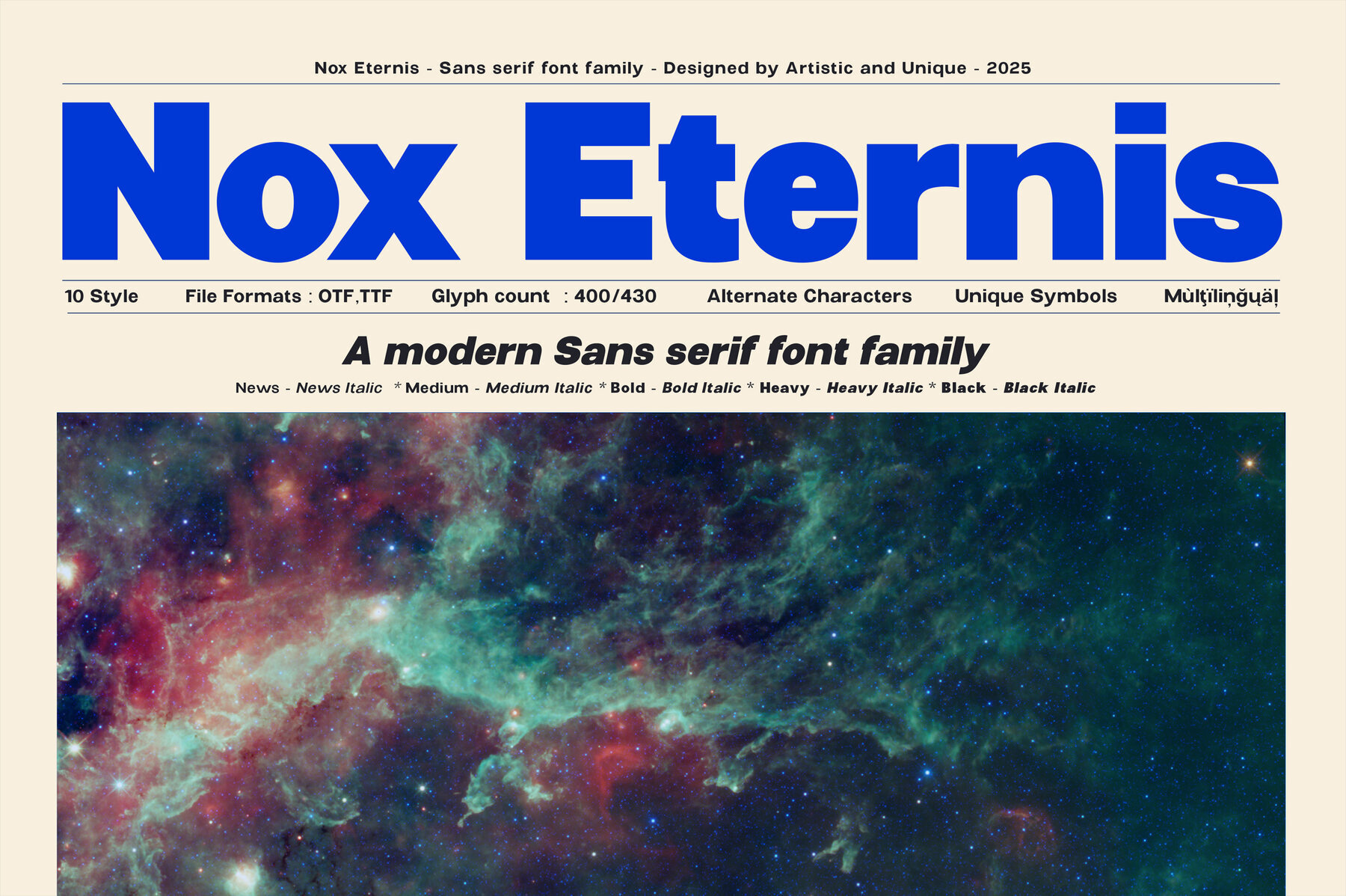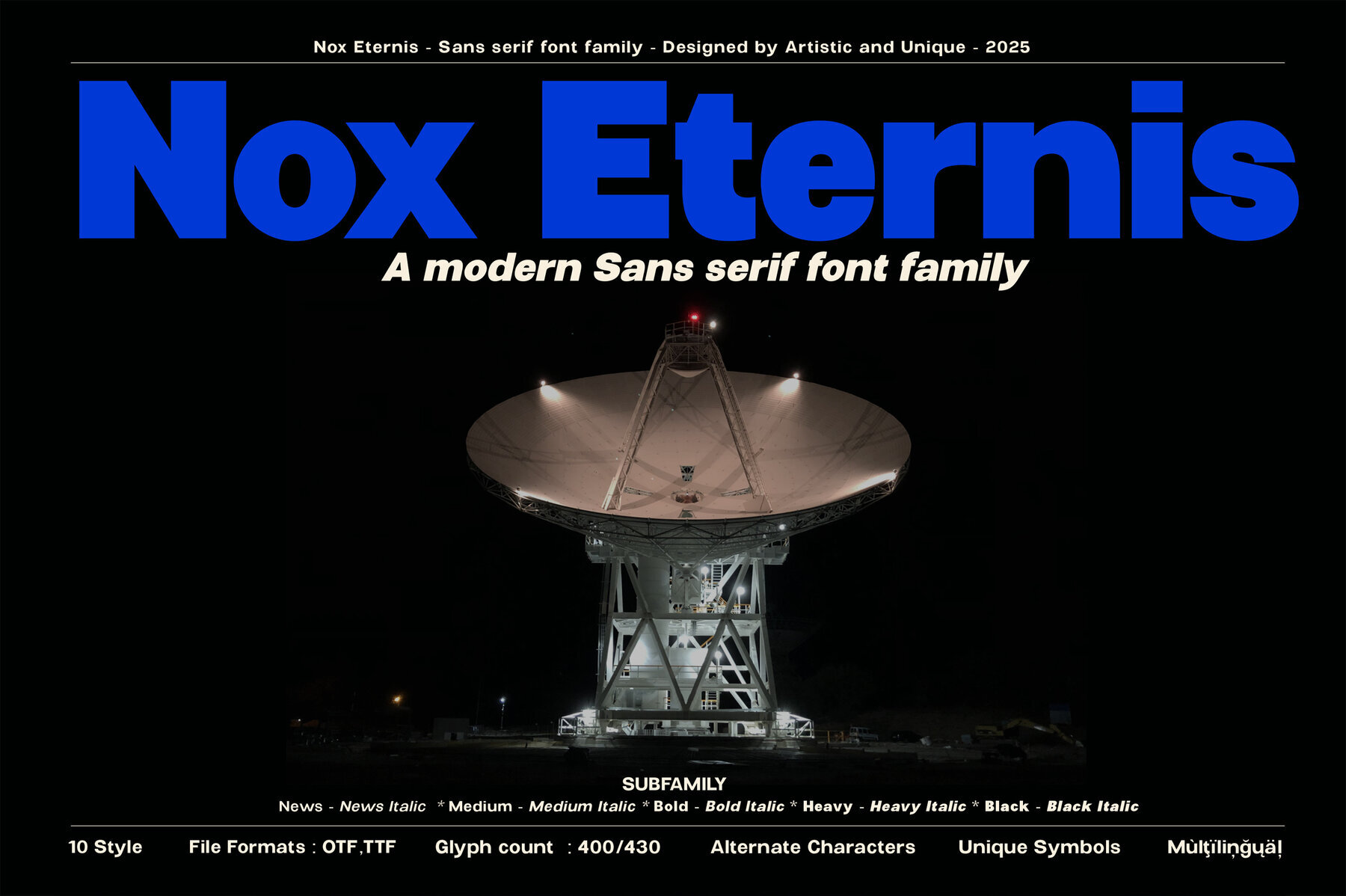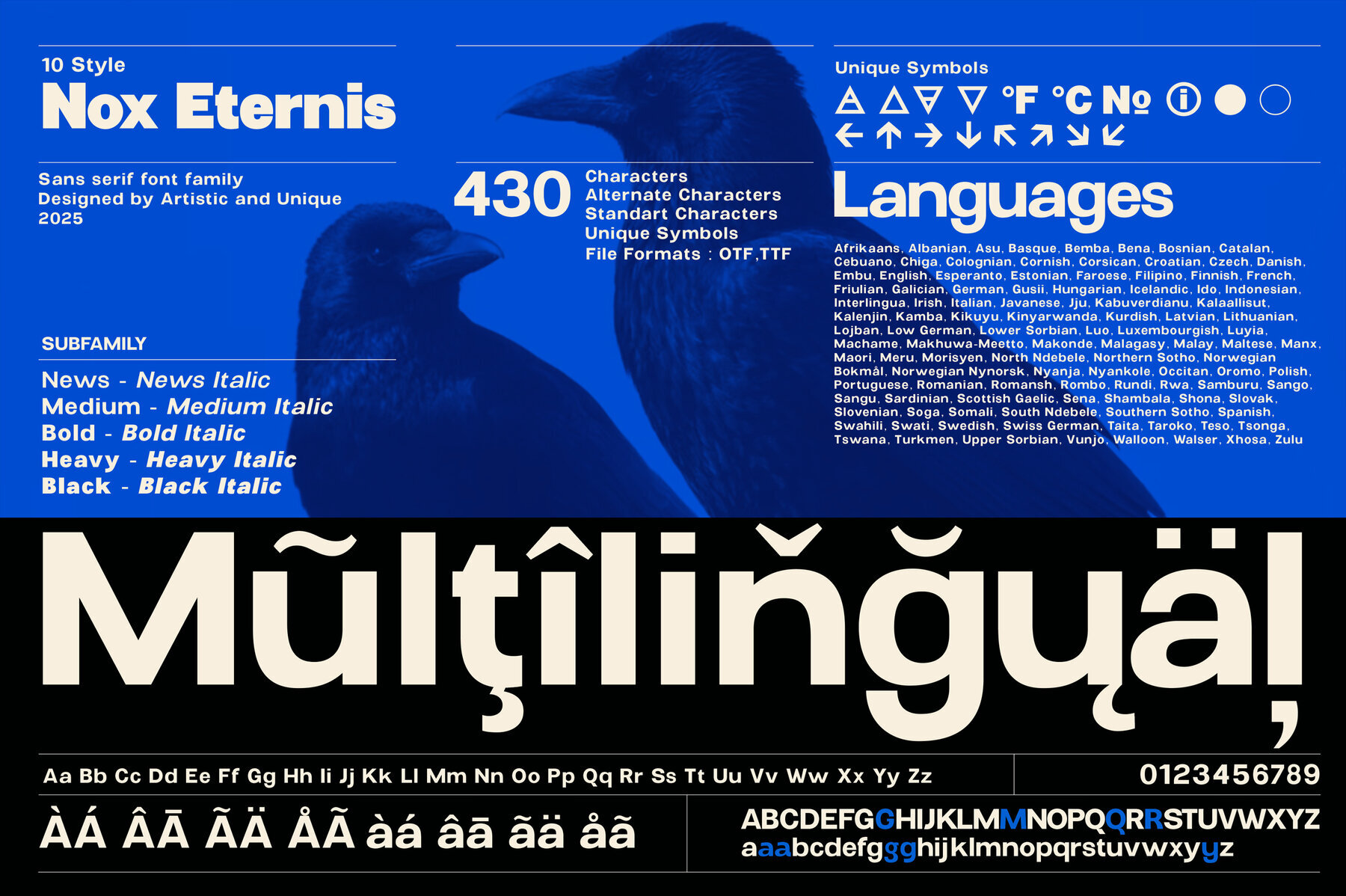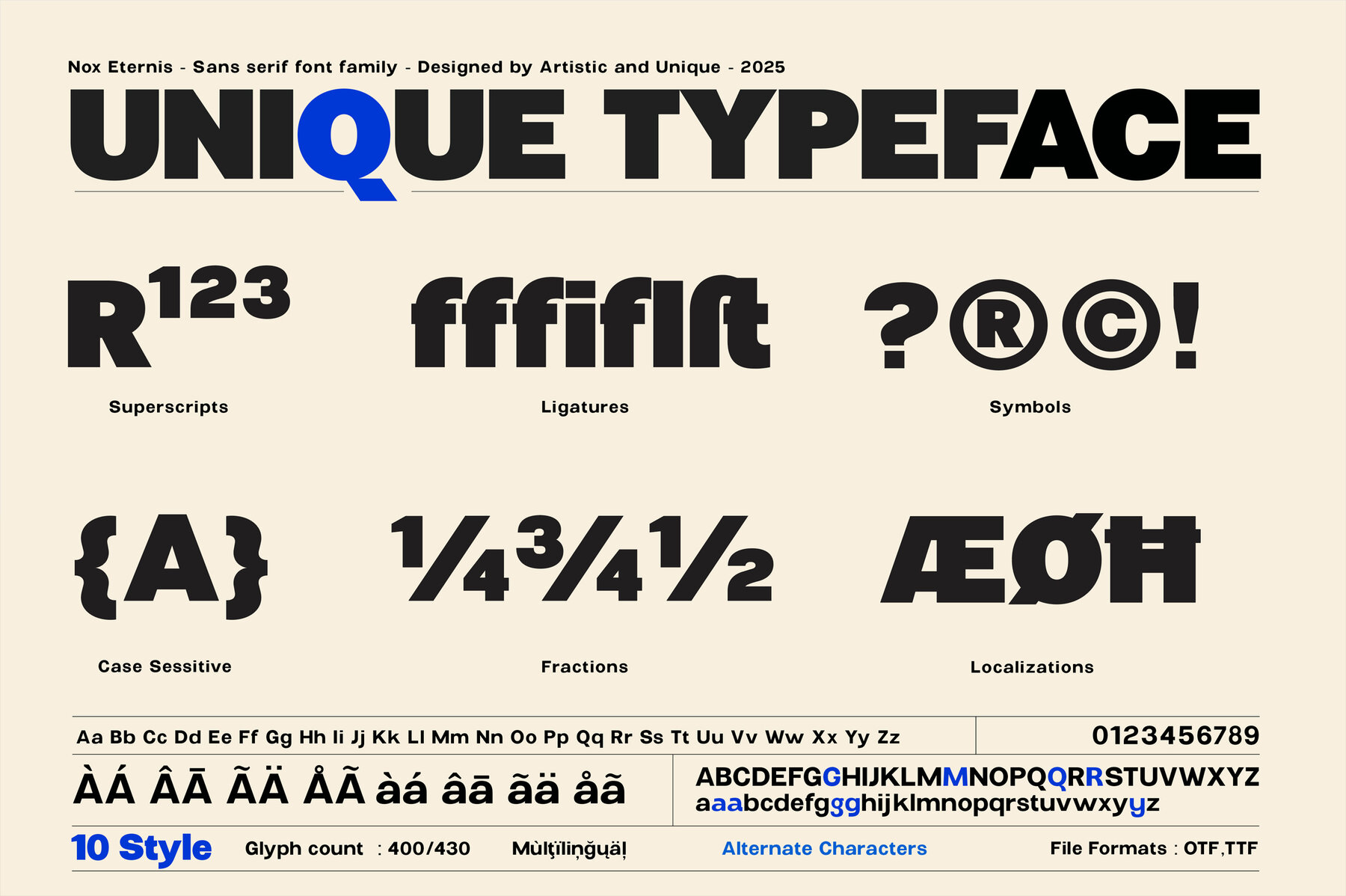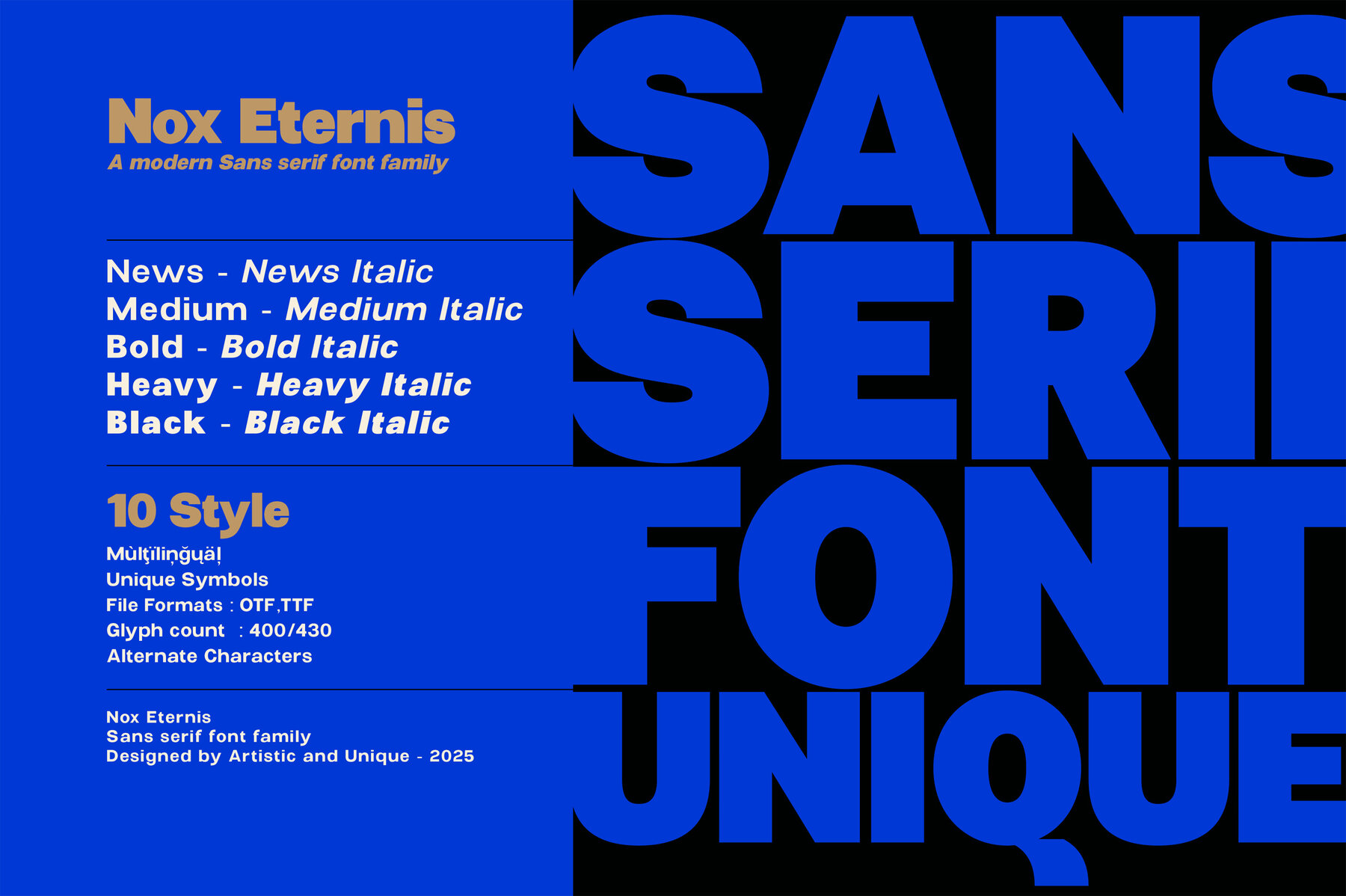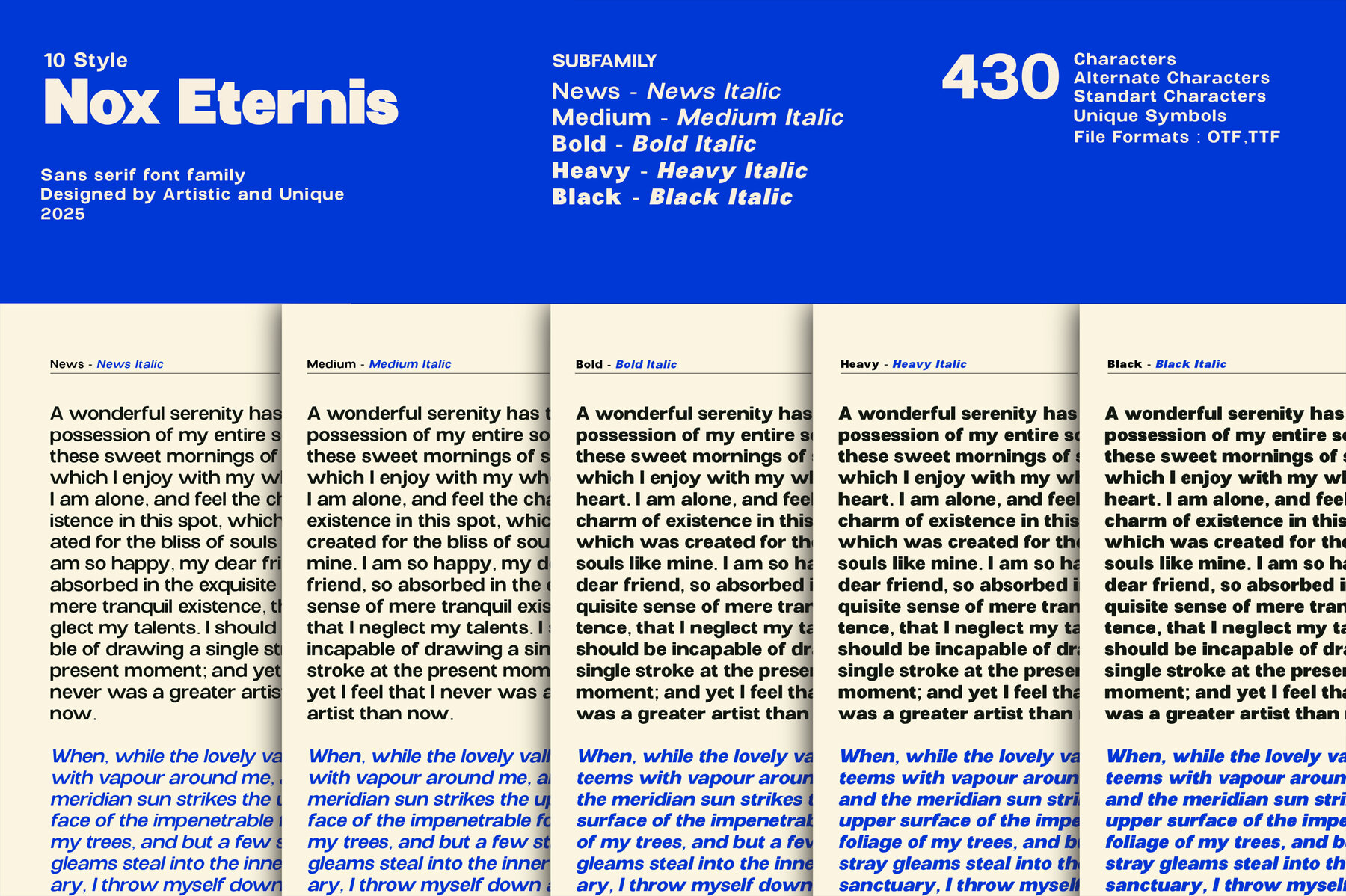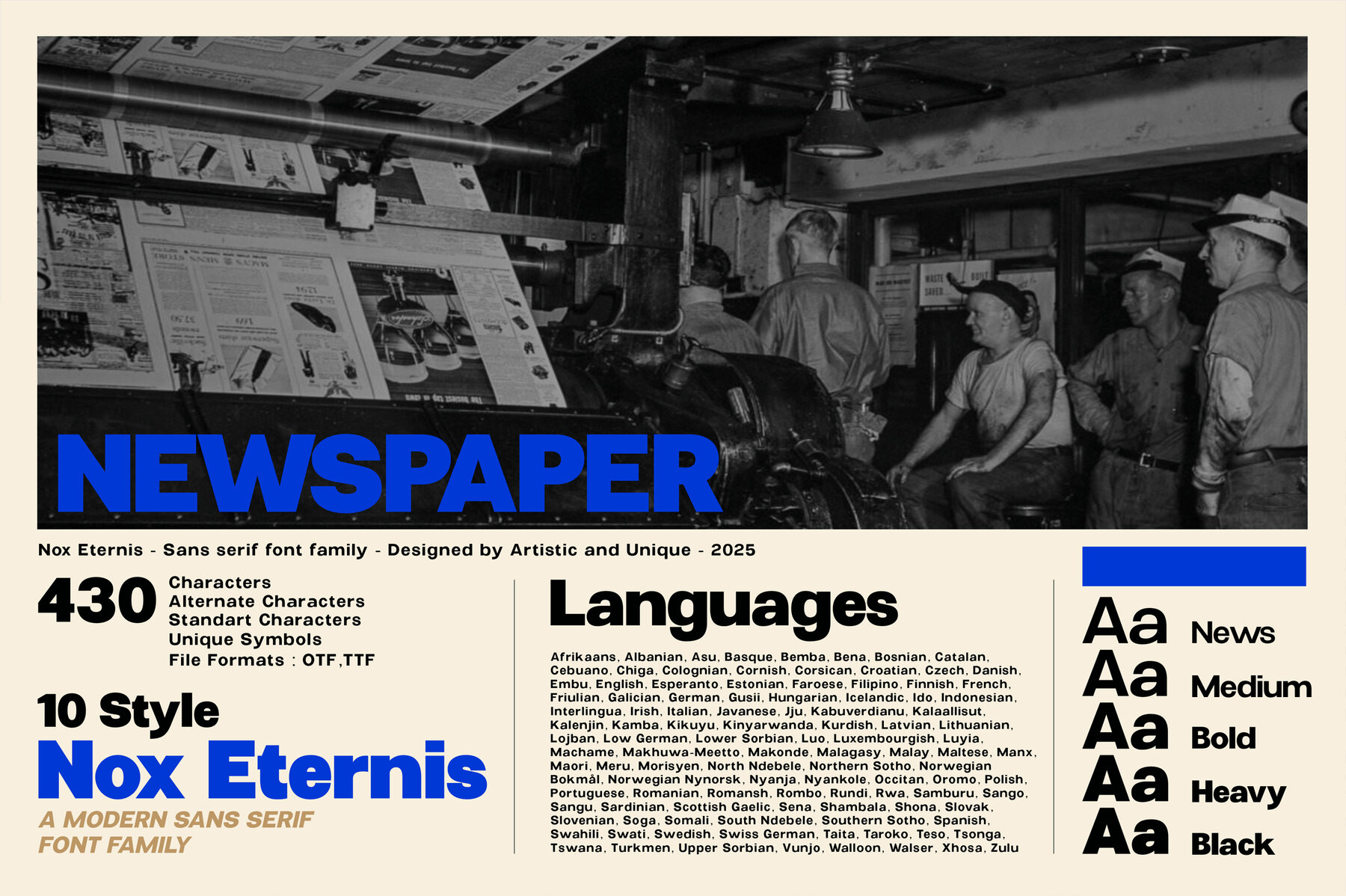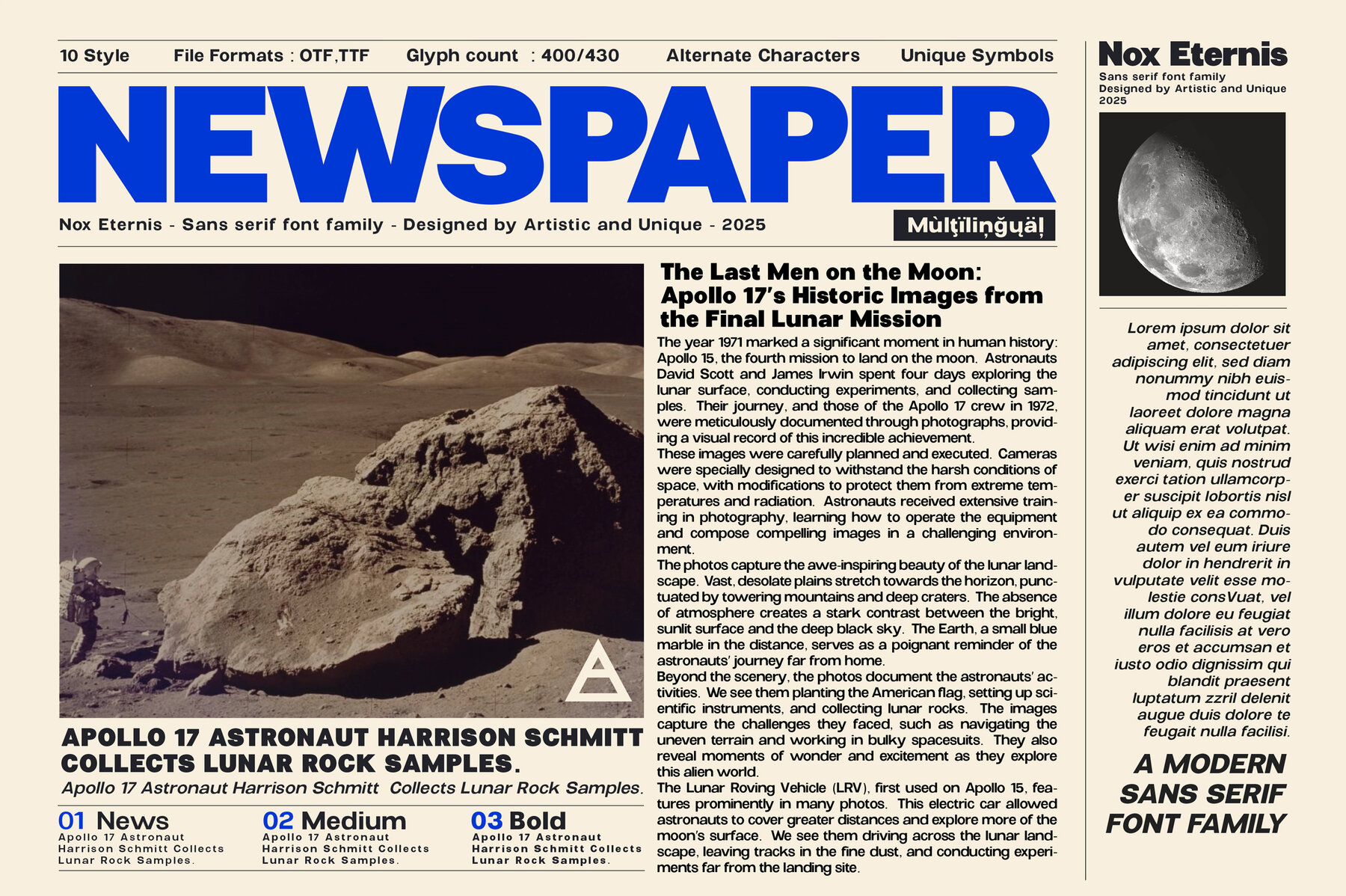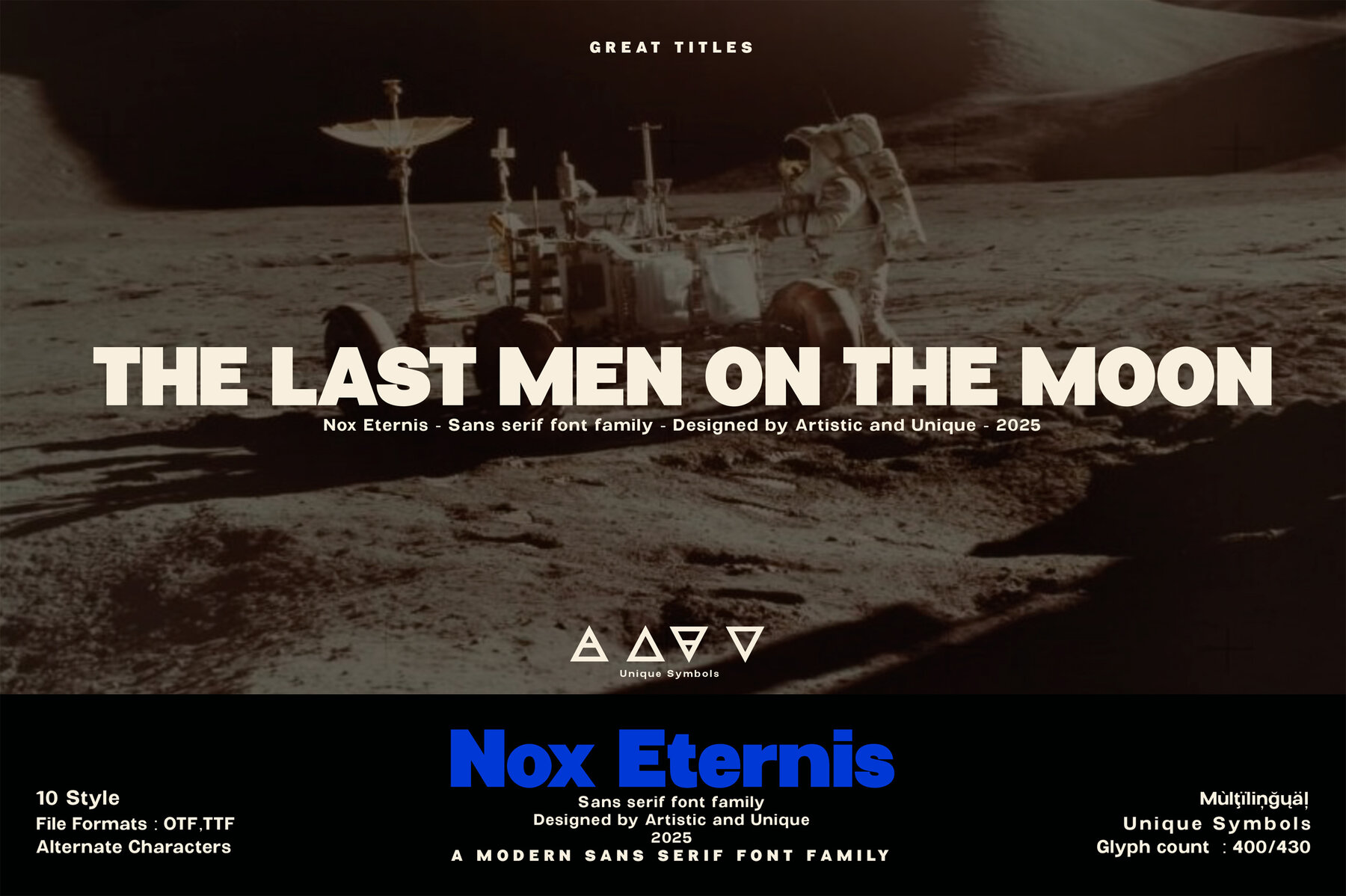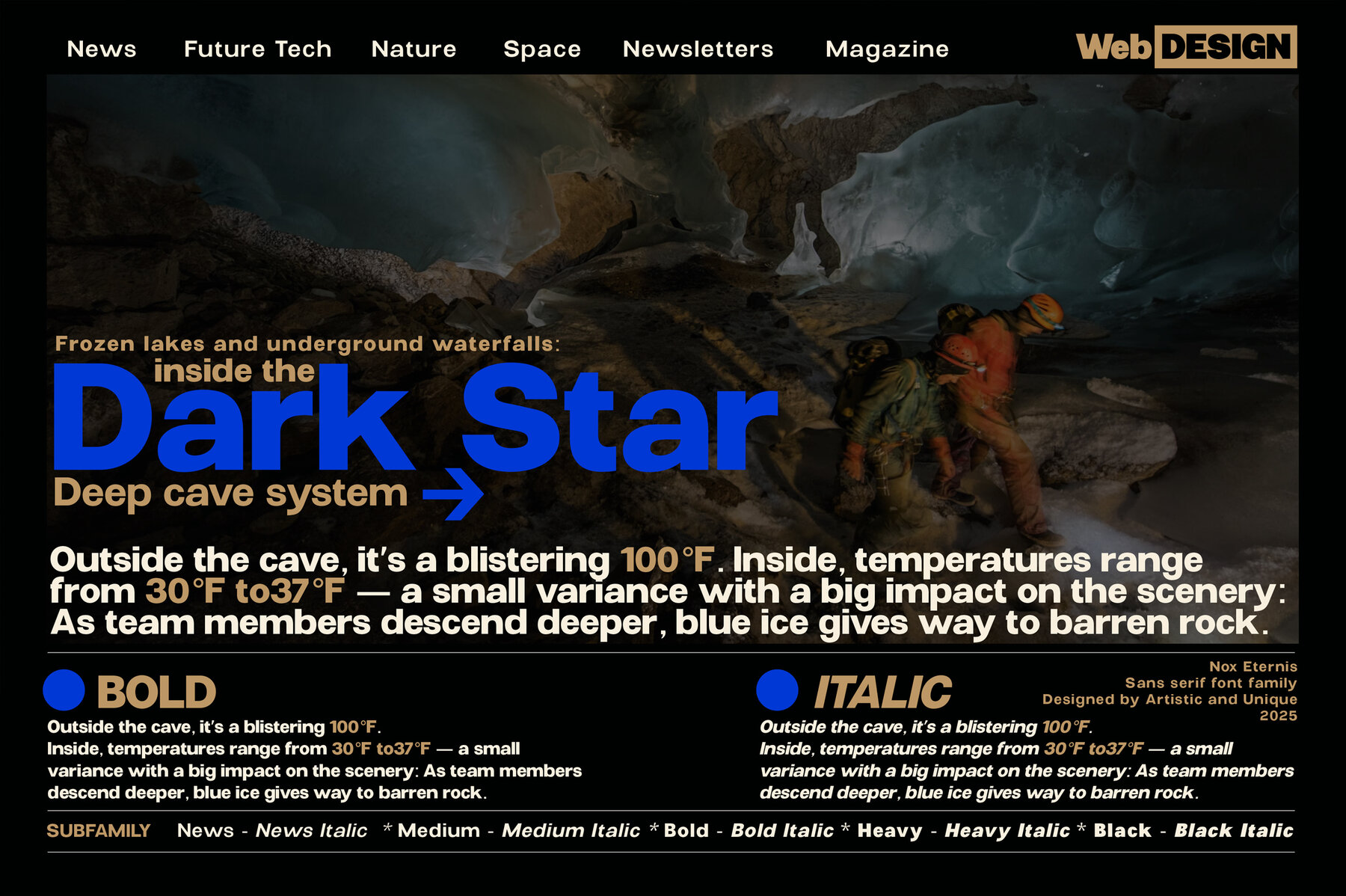
Nox Eternis Font
Nox Eternis is a compelling sans serif font family, celebrated for its clear readability and striking accents. Drawing upon typography from the 1930s to the 1960s, this font revives the timeless spirit of historical publications while adding a modern twist. With a design ethos rooted in simplicity and modernism, Nox Eternis seamlessly adapts to contemporary design projects. This font family, consisting of ten distinct styles, showcases its versatility in both digital and print media. Whether opting for bold styles to emphasize key messages or thin styles for understated elegance, Nox Eternis offers suitable options for varied creative pursuits. The font's multilingual support increases its global applicability, providing sophisticated light tones and attention-capturing bold tones for diverse uses. From books and magazines to editorial headlines, websites, and branding projects, Nox Eternis blends modern and classic aesthetics, making it an exceptional choice for design professionals.Versatile Sans Serif: Nox Eternis